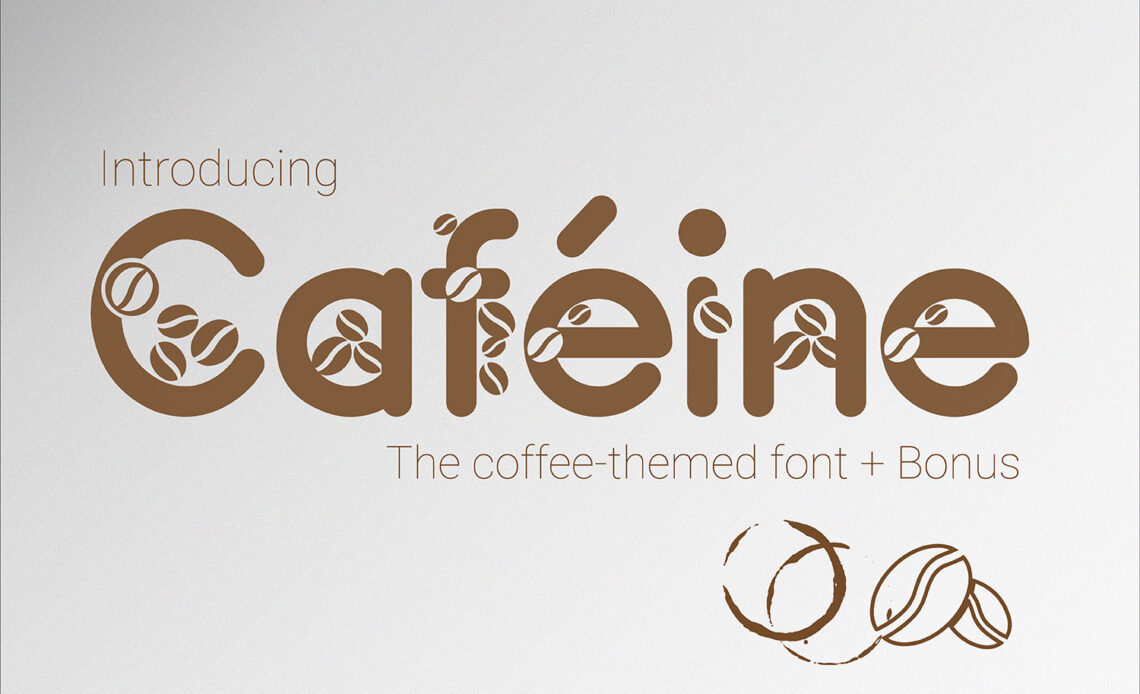
Step into the world of coffee with Caféine Font, a decorative font collection that adds a dash of caffeine-infused charm to your designs. Created with meticulous attention to detail, Caféine captures the bean's organic essence and infuses it into every character, bringing a touch of playful elegance to your words.
Crafted with the coffee industry in mind, Caféine Font is the perfect companion for menus, labels, packaging, and any promotional material that seeks to evoke the warmth and aroma of a freshly brewed cup. This font family brings together the best of both worlds, combining legibility with aesthetics to ensure your message stands out without compromising clarity.
Caféine Font isn't just limited to the coffee world; let its quirky charm enhance invitations, posters, social media graphics, or any creative project that calls for a playful touch. Its versatility extends beyond the coffee house, inviting you to brew up a storm of creativity.
Packed with extras to further elevate your designs, Caféine Font offers an array of decorative elements like borders, ornaments, and flourishes. These carefully crafted details add an extra layer of sophistication and visual interest to your work, allowing you to create something truly unique and captivating.
With Caféine Font, your designs will exude an aura of coffee-infused warmth and creativity. Download it today and embark on a journey of typographic exploration, where every character tells a story and every word leaves a lasting impression.